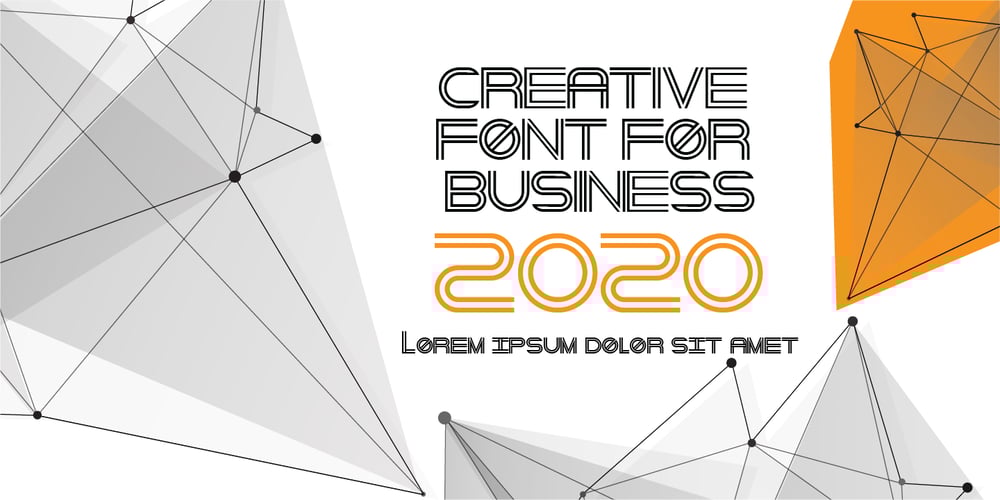
Double Geometry
Double Geometry font
Double Geometry Font Family was designed by Hamid Azzafrar and published by Zefrar. Double Geometry contains 1 styles and family package options. Double Geometry is designed using 2 lines to form a geometric style, inspired from geometry theme and forms.